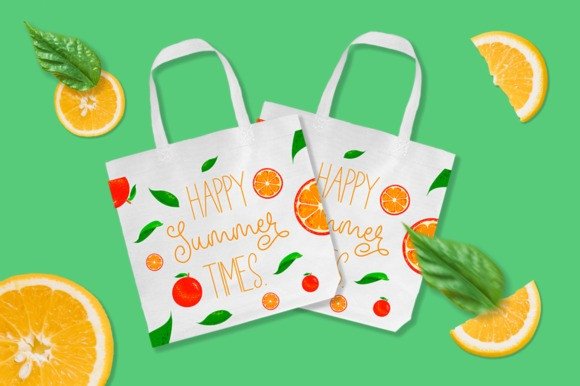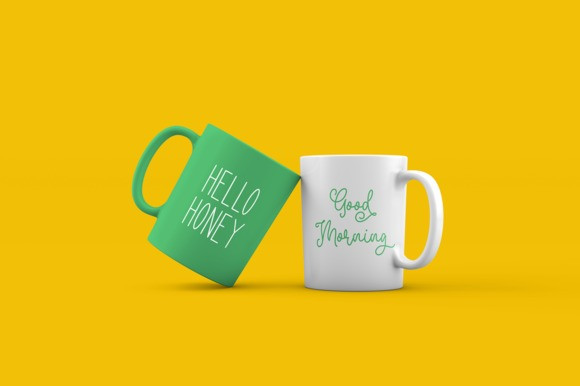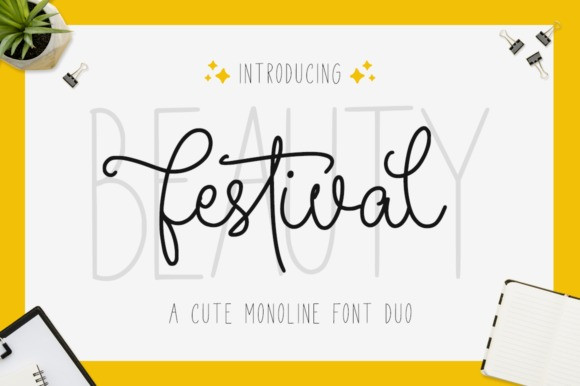
Beauty Festival Font
Beauty Festival Font consists of two fonts designed to complement each other perfectly. Together or apart, these fonts are ideal for adding a chic and cheery touch to your crafts. This font is PUA encoded which means you can access all glyphs and swashes with ease!